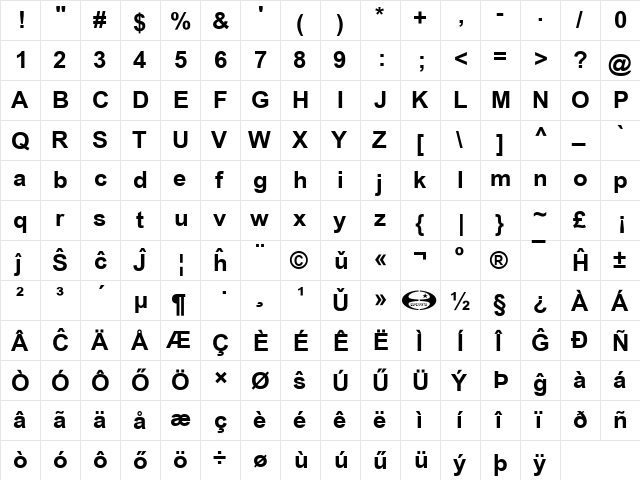
Orion Esperanto Dika
Design Context for Orion Esperanto Typeface
Orion Esperanto offers clean, dependable letterforms without strong stylistic allegiance, making it a practical choice for designers who need flexibility.